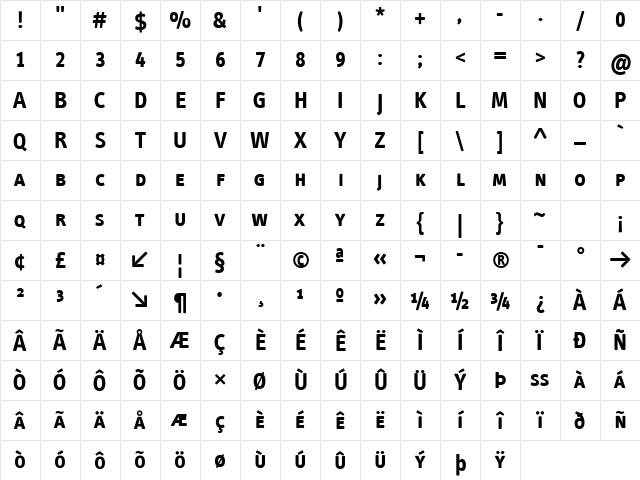
InfoText Bold
Foundry: Erik Spiekermann, Ole Sch fer, . Published by FontShop International FontFont release
Design Context for InfoText
InfoText is a composed and adaptable typeface that performs quietly and consistently across a wide range of design contexts. Its bold stroke weight gives it real presence on the page.
Who designed the InfoText Bold font?
This font was published by Erik Spiekermann, Ole Sch fer, . Published by FontShop International FontFont release. Check the technical specs section for copyright and designer details.